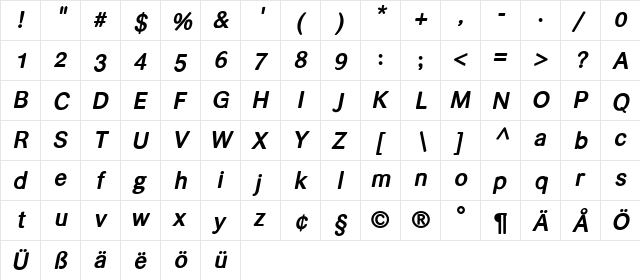
helvari Bold Italic Font Preview
| Foundry | loosy (fabian pfeifhofer) |
| Designer | loosy (fabian pfeifhofer) |
Design Context for helvari Typeface
helvari takes a measured approach to typography — its balanced proportions and neutral character make it a reliable workhorse for both digital and print work. Its italic angle brings a sense of urgency and motion to the letterforms. The heavy weight commands attention and anchors typographic hierarchies.
Pro Tip: Try helvari for annotation and caption copy alongside an upright companion — the contrast in angle creates a dynamic but ordered typographic system.